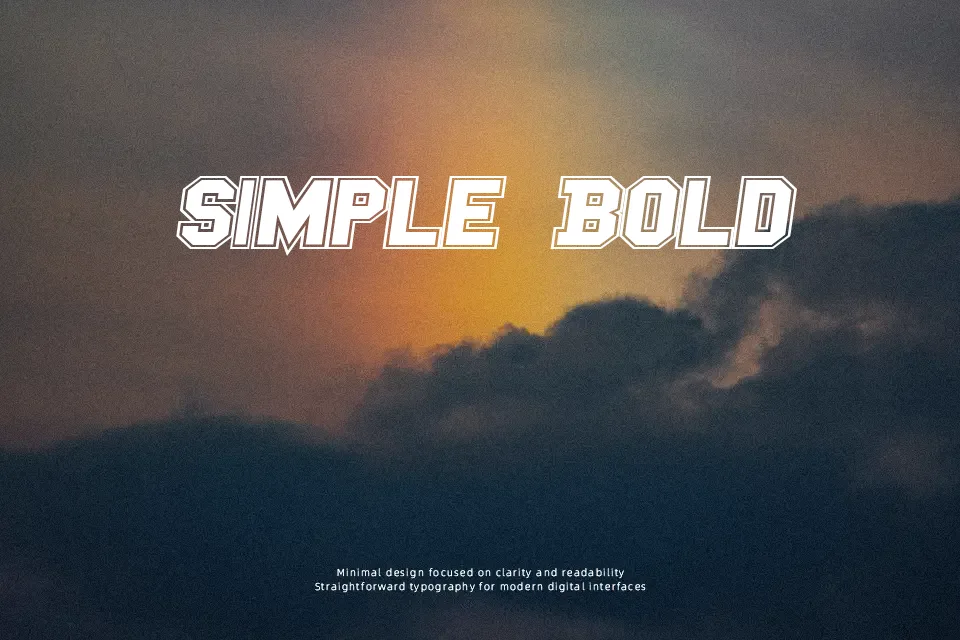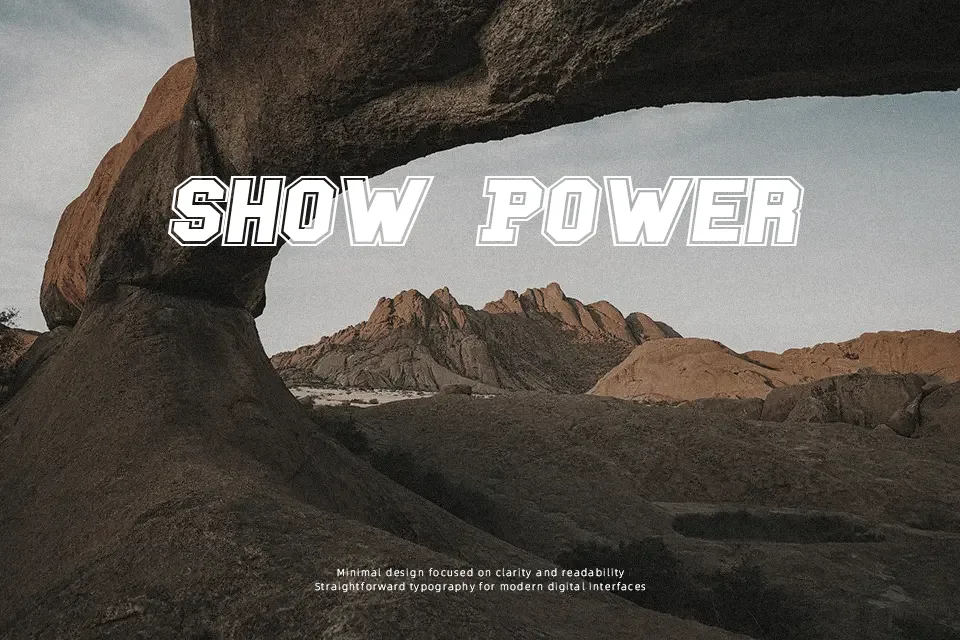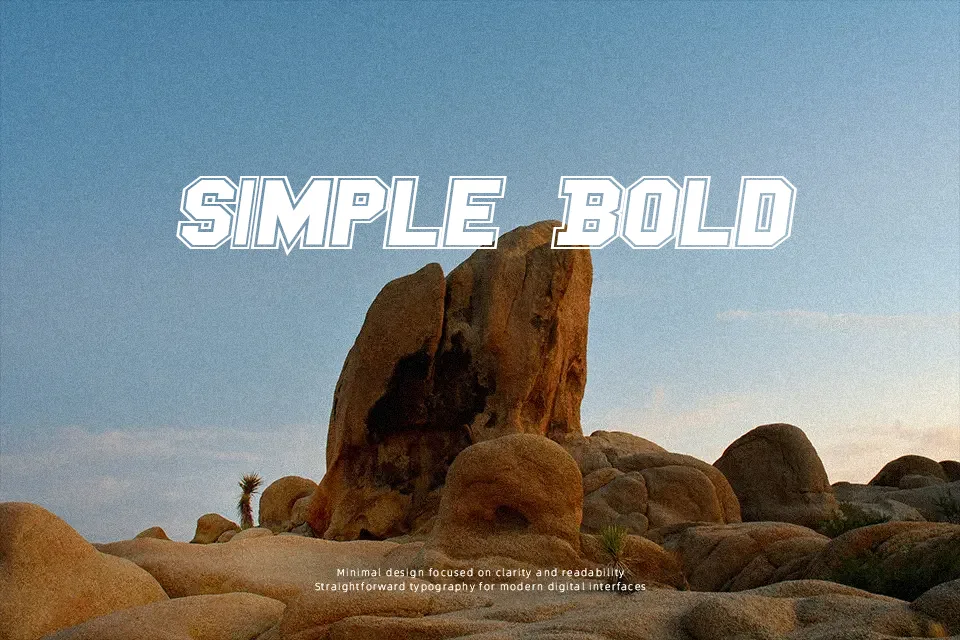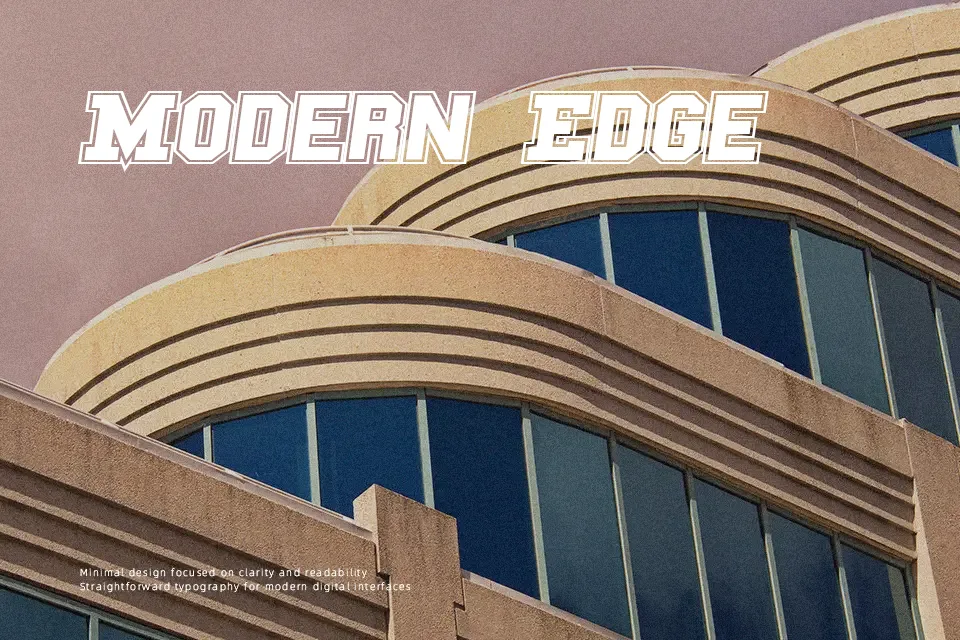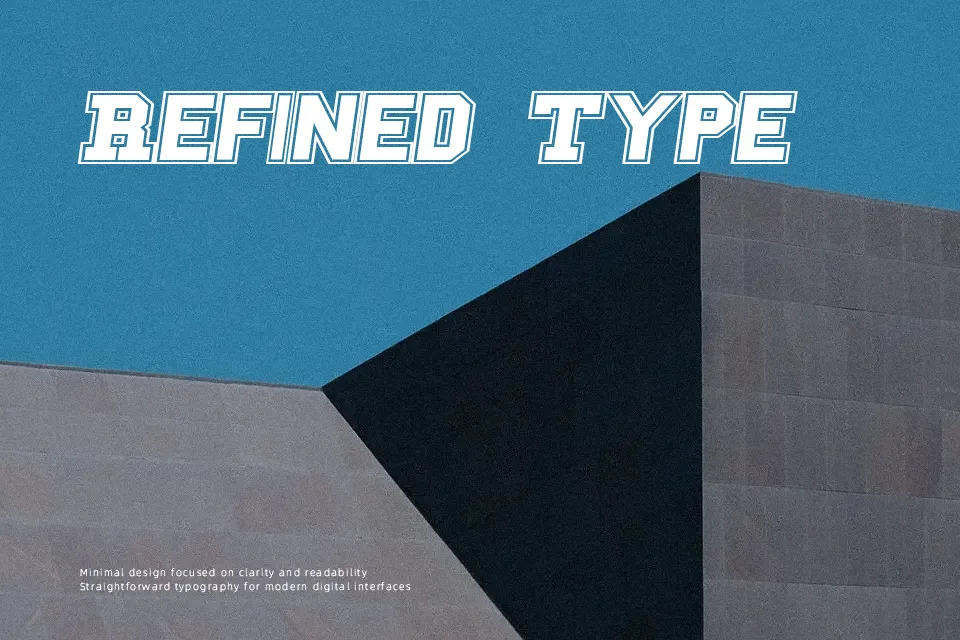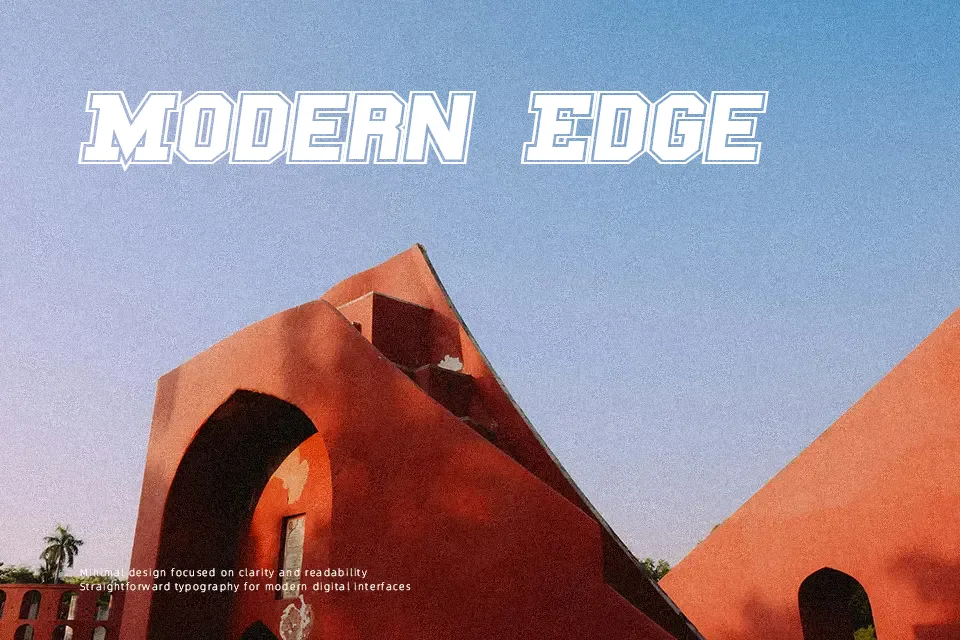
Campus A Font
Campus A Font is a heavy, slab-style display typeface with compact, squared letterforms and the familiar college jersey look. Strokes are thick and consistent, corners feel sturdy rather than soft, and spacing runs tight enough to build dense, impactful words. This gives it a confident, old-school athletic character that works nicely on sports team branding, event posters, numbers on jerseys, and bold typographic lockups for campus-themed projects. It holds up well at large sizes, but its chunky shapes can feel cramped in small body copy or long paragraphs, so it is better kept for short phrases, initials, and titles rather than extended reading.
sports posters and flyers
college or campus-themed logos
jersey numbers and team branding
bold headlines for athletic events
long paragraphs or body text
minimalist corporate documents
small UI text or captions
formal editorial layouts